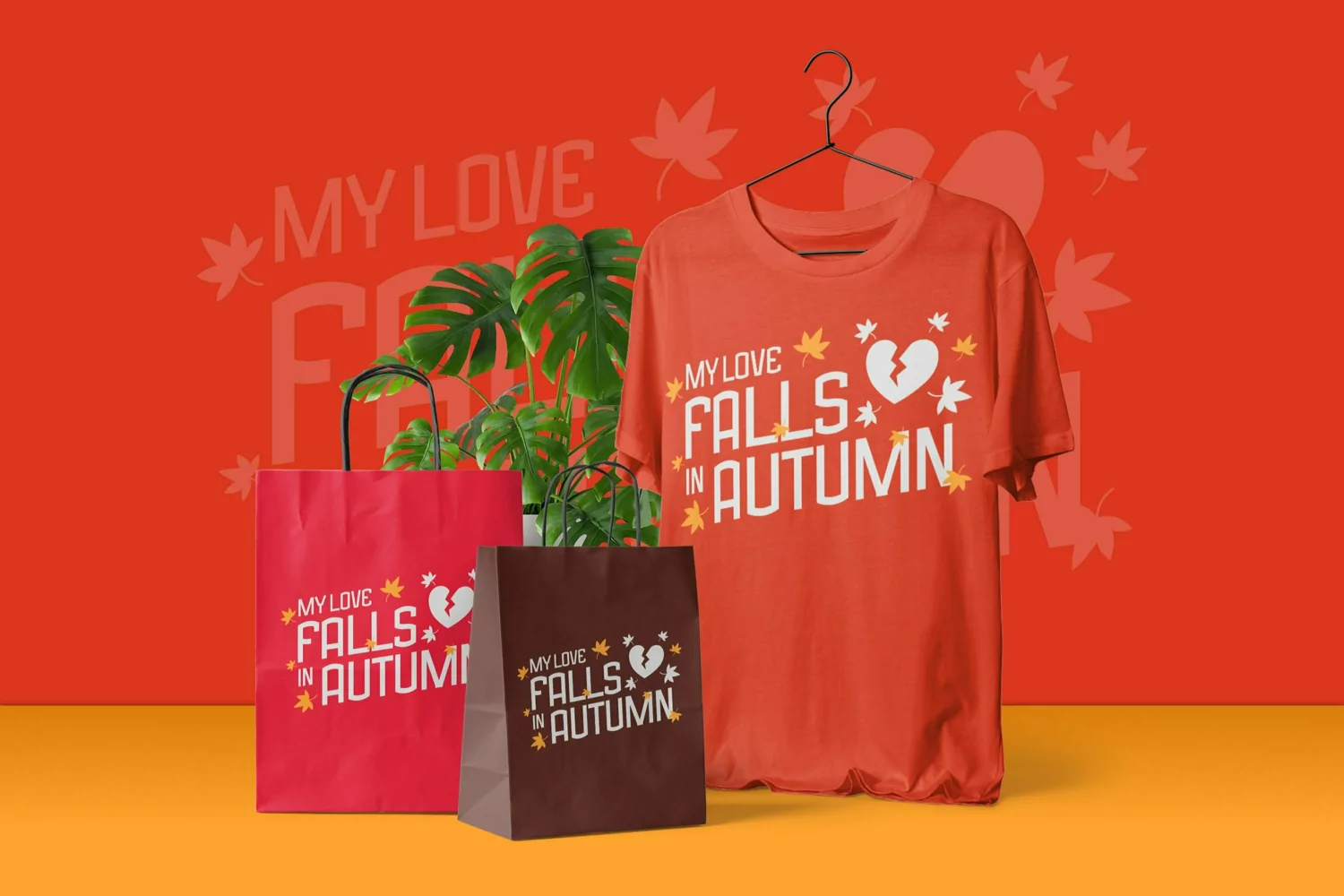
Web Font Caesar Seasonal Font
Suitable for some designs such as the logotype, brand, packaging, quotes, music poster, t-shirt, cover book and more custom design. The features uppercase, lowercase, numeral, punctuation & symbol, multilingual support.